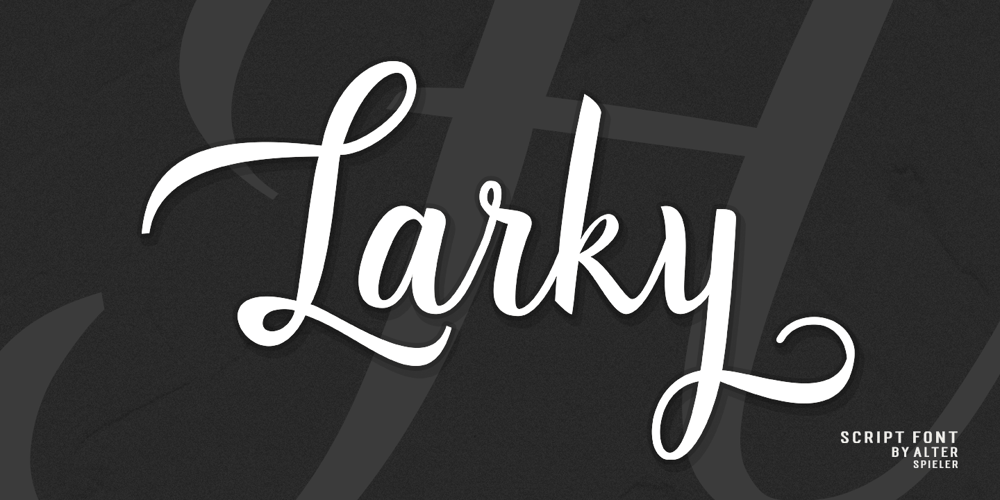
Larky
Larky font
Larky Font Family was designed by Amri and published by Alterspieler. Larky contains 1 styles and family package options. Larky is a beautiful and unique modern calligraphy. This font has simple and interesting characters for various design needs. You can use it for embroidery, screen printing, business cards, cutting, branding, and more.Larky has all uppercase and lowercase letters, also has alternatives, multi languages, ligatures, numbers, punctuation.